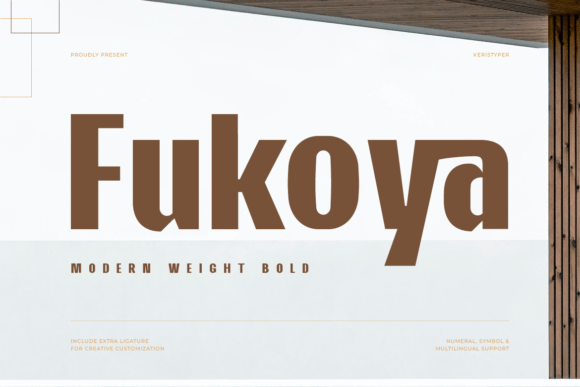
Fukoya: A Modern Sans Serif for Bold Branding
First Impressions and Visual Personality
At first glance, Fukoya feels like a confident step into modern typography. It carries a clean, structured presence that’s immediately approachable yet subtly commanding. The letters have a well-balanced weight and a slight geometric edge that gives them a contemporary feel without leaning too heavily into the coldness of some minimalist sans serifs.
The overall mood it creates is one of professionalism and clarity. There’s a quiet assurance in its curves and angles, making it ideal for projects that need to communicate reliability and innovation at the same time. Its personality leans toward the neutral but with enough character to avoid feeling generic or forgettable.
Fukoya naturally belongs in environments where clarity meets creativity—think editorial design, brand identity, and digital products that aim to be both functional and visually engaging.
Performance in Real-World Projects
When I tested Fukoya in logo design, it performed exceptionally well. Its clean lines and strong forms made it easy to create a brand mark that felt both modern and memorable. In packaging design, it added a sense of sophistication without overwhelming the product itself. Whether used on product labels or premium packaging, Fukoya maintained readability while contributing to an elevated aesthetic.
In posters and flyers, Fukoya handled large headlines with ease, delivering strong visual impact without sacrificing legibility. For invitations and merchandise, it brought a consistent tone across different formats, which is crucial for brand consistency. On website headers and blog graphics, it paired well with both serif and script fonts, allowing for dynamic font pairing without clashing.
Its performance in social media graphics and digital ads was particularly noteworthy. The font retained its crispness even at smaller sizes, which is essential for platforms where text often needs to be compact yet impactful. When used in Canva templates or Cricut projects, Fukoya proved to be versatile enough to adapt to various printable design scenarios without losing its core identity.
Where to Use Fukoya with Caution
While Fukoya excels in many areas, there are specific contexts where it should be used carefully. Large headlines benefit from its boldness, but when used for extended body text, it can become tiring due to its uniformity. Short phrases, quotes, and decorative accents work best with this font, allowing it to shine without overextending its role.
In premium packaging or social posts, Fukoya adds a refined touch, but it’s important to balance it with other elements to avoid monotony. Supporting text should be handled with care, as the font’s uniformity might not provide the necessary contrast or visual interest for long passages.
Readability, Hierarchy, and Brand Consistency
One of the most critical aspects of any typeface is how it affects readability. Fukoya performs well in this regard, especially in larger sizes. However, when scaled down, its uniform stroke weights can reduce legibility, so testing it in black and white is always a good idea before finalizing a project.
Its ability to maintain hierarchy is another plus. When used for headlines, subheadings, or call-to-action buttons, Fukoya helps establish clear visual layers. This makes it a solid choice for branding efforts that rely on strong visual communication.
Brand consistency is further supported by Fukoya’s versatility. It can be used across multiple touchpoints—whether in print or digital formats—without feeling out of place. This makes it an excellent option for businesses looking to build a cohesive brand identity through typography.
Design Notes for Practical Use
As a designer, here are some practical notes for using Fukoya effectively:
- Test in Black and White: Check how it performs in monochrome situations to ensure it still holds its form and doesn’t lose its visual strength.
- Check Small-Size Readability: Ensure it remains legible when used in smaller sizes, especially for web or mobile applications.
- Try on Real Mockups: Always test it in real-world scenarios—like packaging or signage—to see how it interacts with other design elements.
- Compare Uppercase and Lowercase: Understand how its uppercase and lowercase variations affect the tone and rhythm of your text.
- Review Spacing: Pay attention to letter and word spacing to maintain a balanced look across different layouts.
- Test Beside Other Fonts: Experiment with pairing it alongside serif, script, or display fonts to find the right balance for your project.
Fukoya is a premium font that brings a modern, professional edge to any design project. Whether you're working on brand identity, editorial design, or digital products, it's a reliable choice that can elevate your visuals while maintaining clarity and consistency. As with any creative font, understanding its strengths and limitations will help you use it more effectively—and that’s the hallmark of thoughtful design.